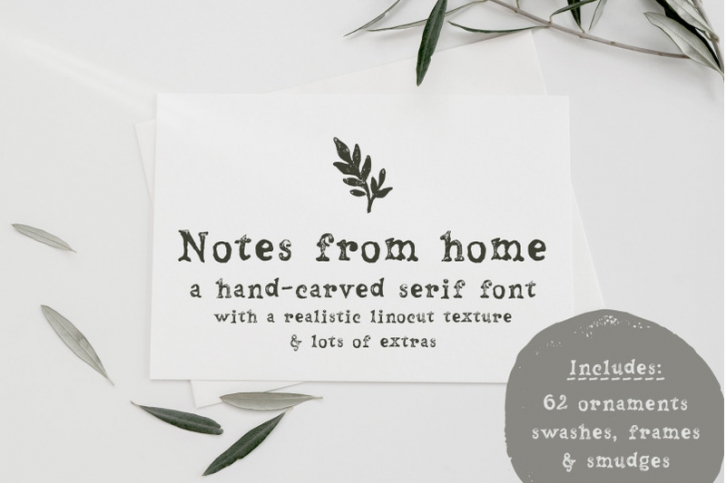
Notes From Home is a serif and ornaments font family made using hand-carved linoleum. This collection has a quirky handmade look, but can also be used in retro and vintage designs, such as collages. The fonts have a realistic ink stamp texture that will look great in logos, notes and quotes, social media posts, and branding and packaging.
Notes From Home includes:
- Notes From Home serif font in three variations: regular, dirty and faded
- An ornaments font (with doodles, swashes and frames) in 2 variations: regular and faded